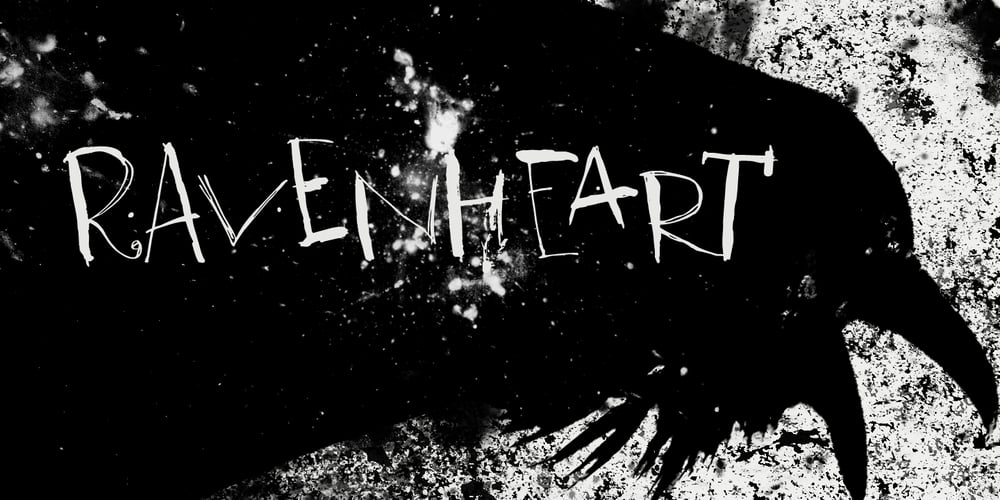
Ravenheart Font Family was designed by David Kerkhoff and published by Hanoded. Ravenheart contains 1 styles and family package options. I like Ravens. In fact, I like them so much that I have a tattoo of a Haida raven! Ravenheart was more or less modelled on my Qilin font, but it is completely different. It is scary and inky, but it has a certain flair as well. A bit mystical, a bit evil, but I am sure you’ll find many uses for it. Comes with a fluttering of diacritics.